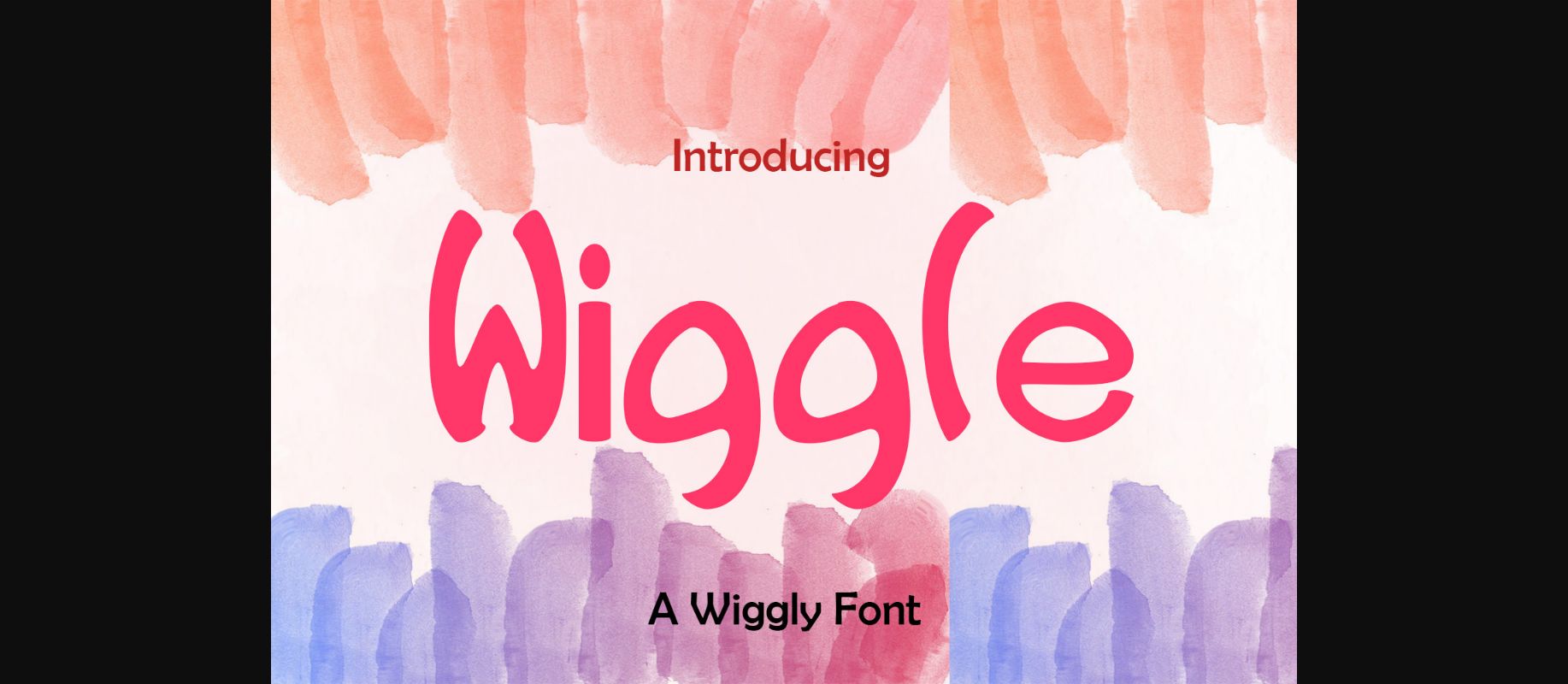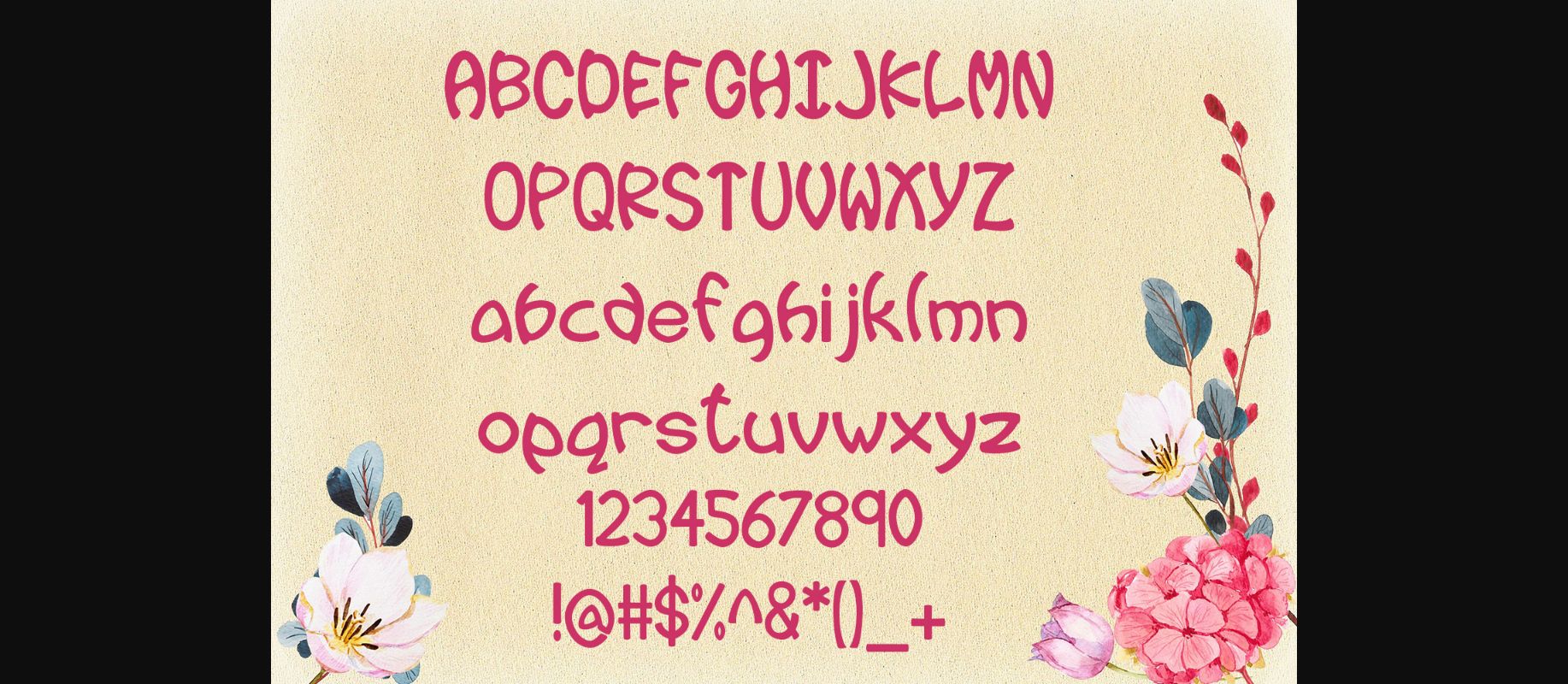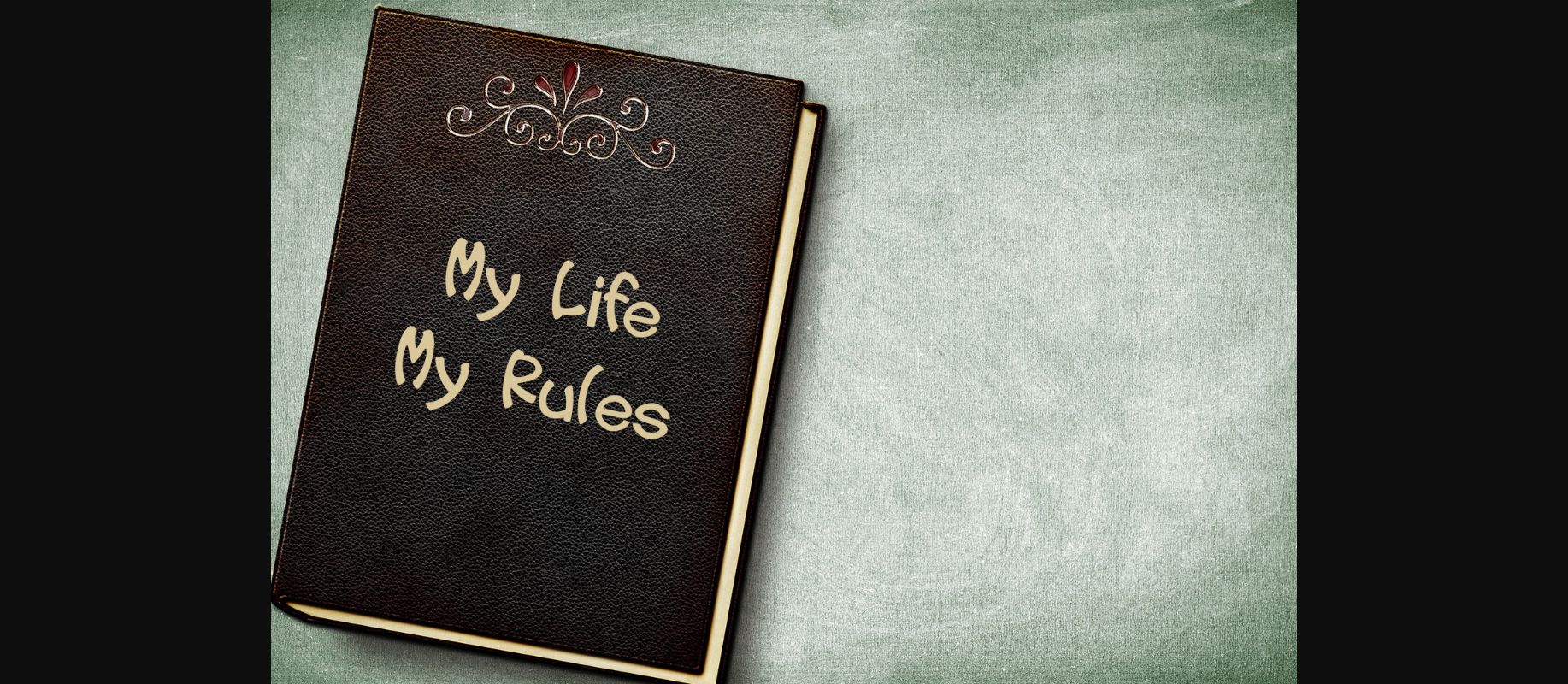
About Wiggle Font
Wiggle is a beautiful decorative font which can be used for wedding cards, quotes, headings, blogs, logos, invitations and more! Wiggle includes all caps, punctuation, and numbers.